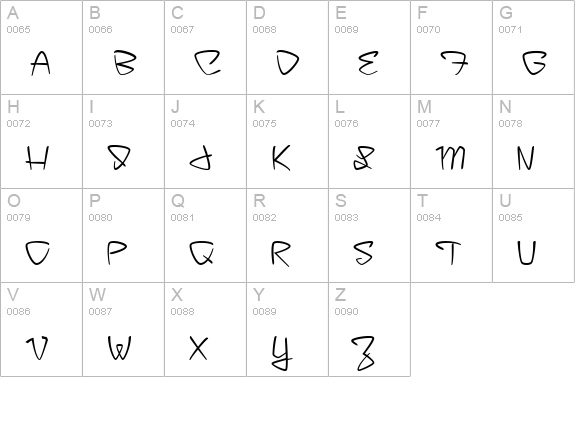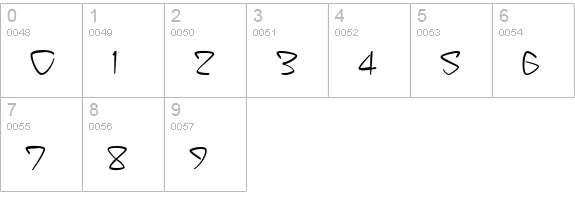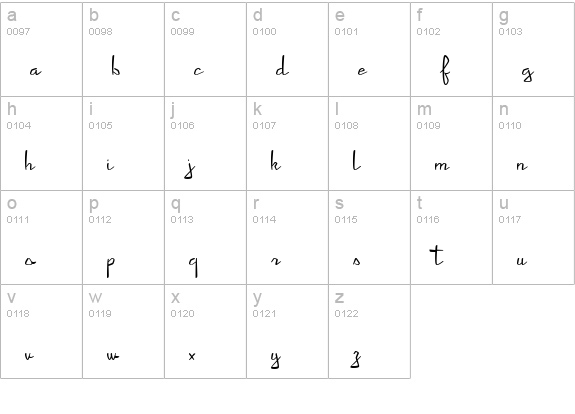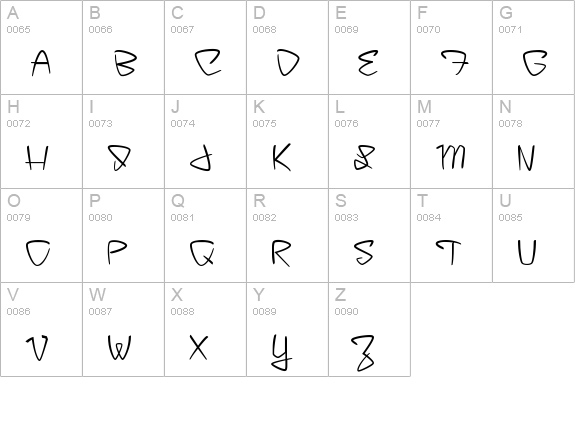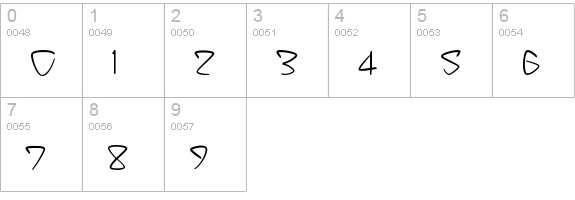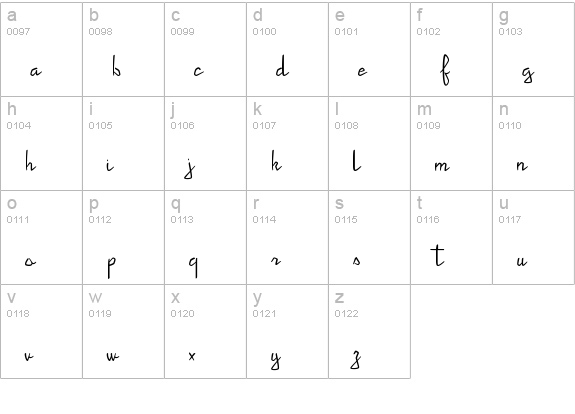
Starlight Hotel Font Details
Introducing Starlight Hotel, a captivating and elegant font that will transport you to a world of sophistication and luxury. With its graceful curves and refined strokes, this typeface embodies the essence of timeless beauty and class. Designed with meticulous attention to detail, Starlight Hotel is perfect for adding a touch of elegance to any project. Its versatile nature makes it suitable for a wide range of applications, from branding and advertising to wedding invitations and editorial designs. But what sets Starlight Hotel apart from other fonts is its unique feature – it's absolutely free! Yes, you heard it right. This exquisite font is freely available to download at FontsMarket.com. Now you can bring a touch of elegance to your designs without breaking the bank. Whether you're a professional designer or a hobbyist, Starlight Hotel is a must-have in your font collection. Its timeless appeal and effortless sophistication will elevate your designs to a whole new level. So why wait? Head over to FontsMarket.com and download Starlight Hotel today. Unleash your creativity and let this font illuminate your projects with its radiant charm.